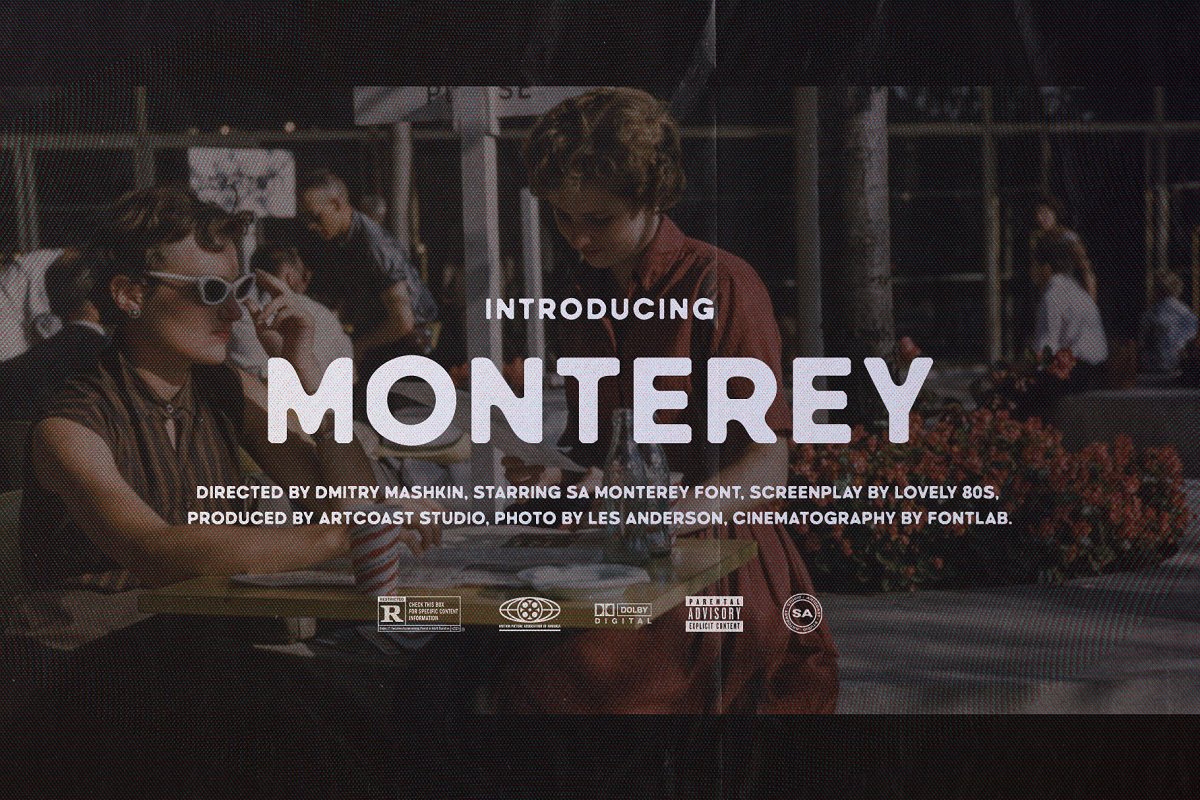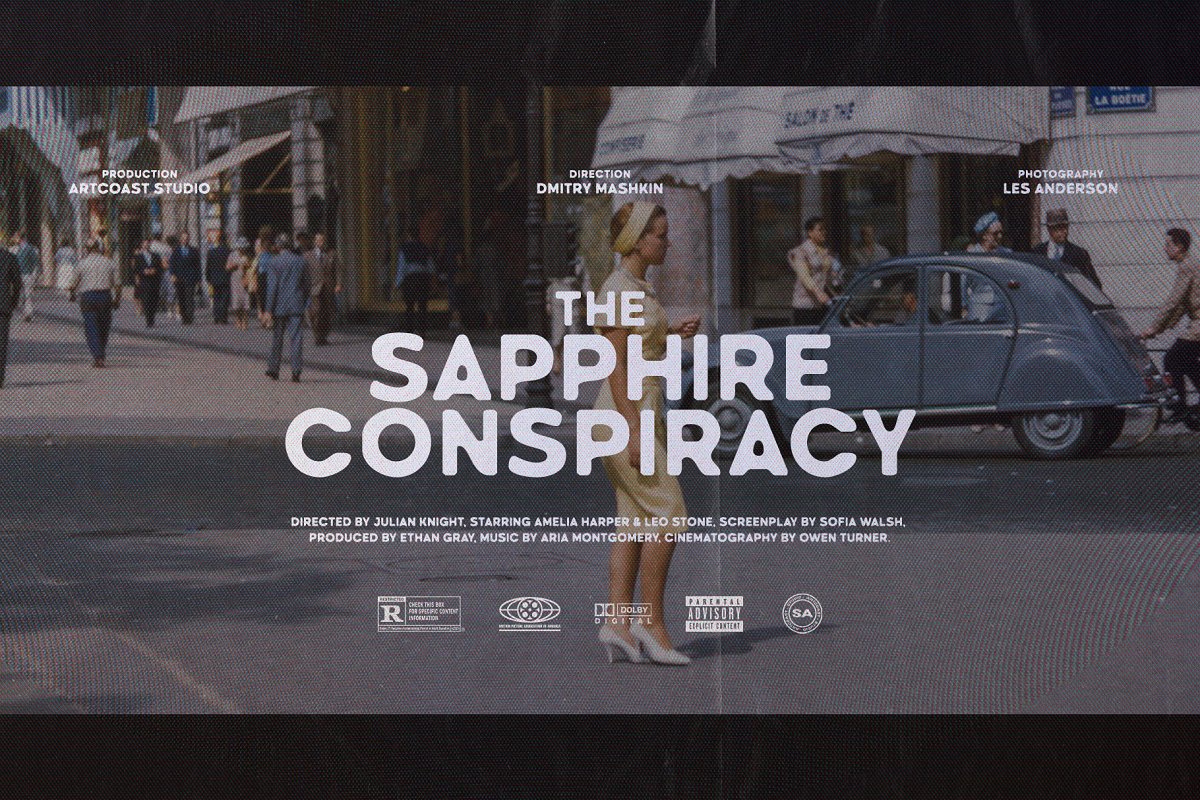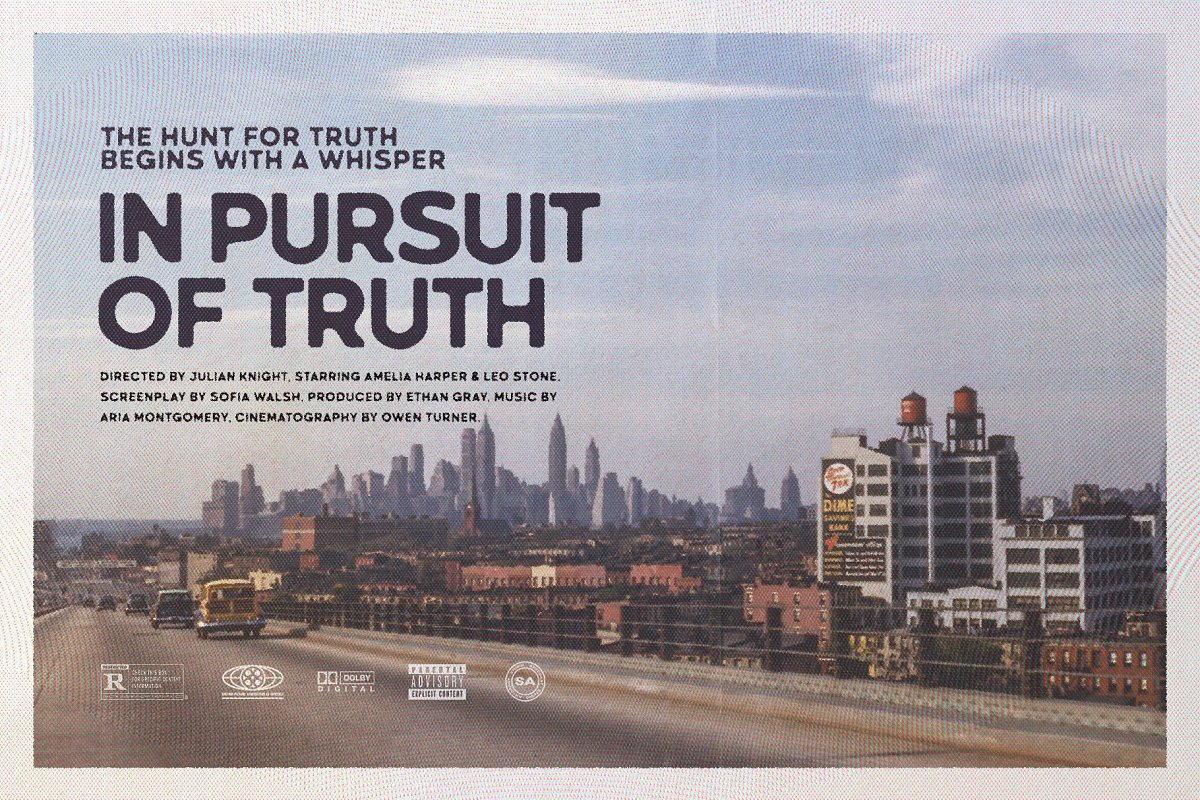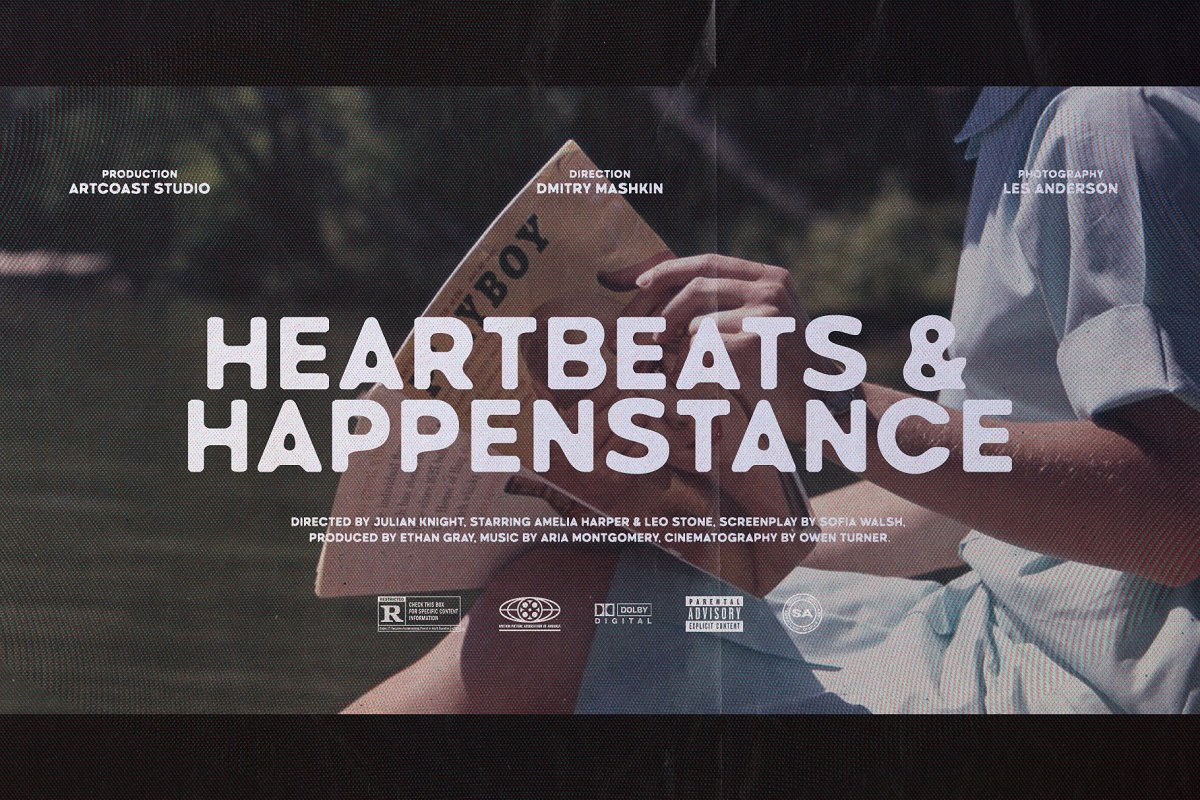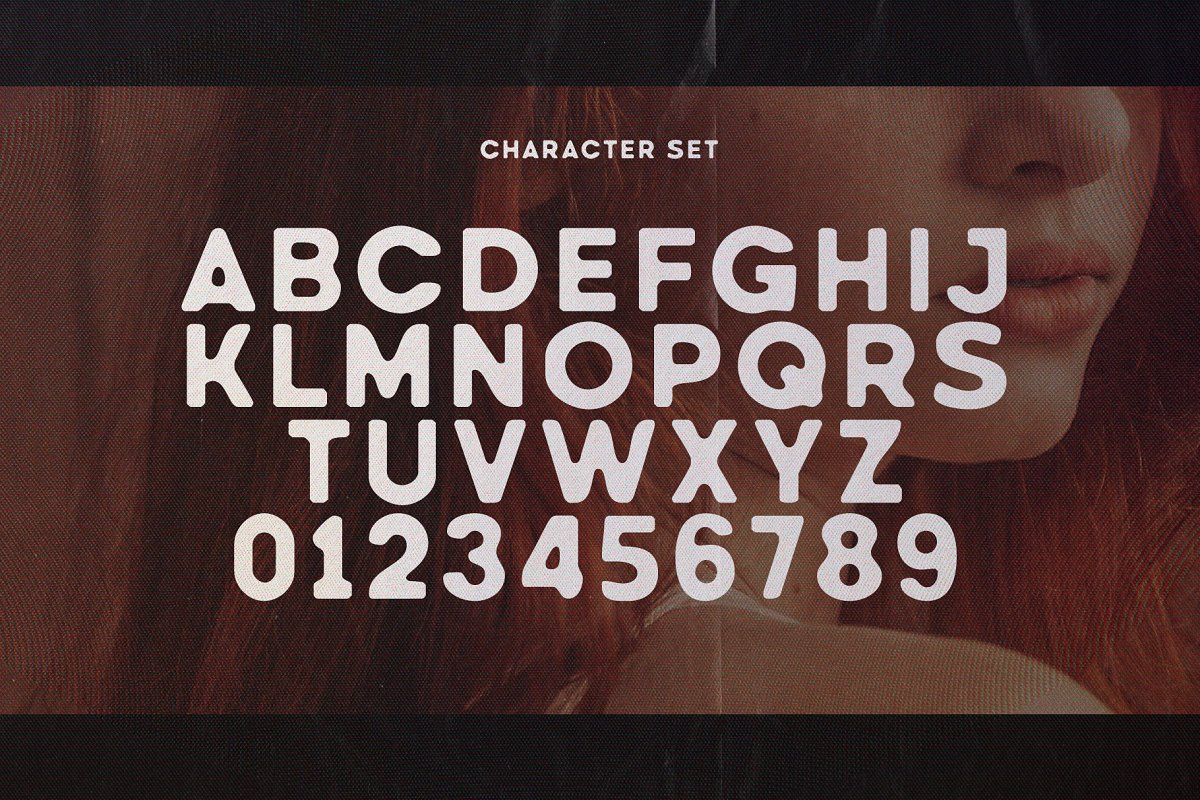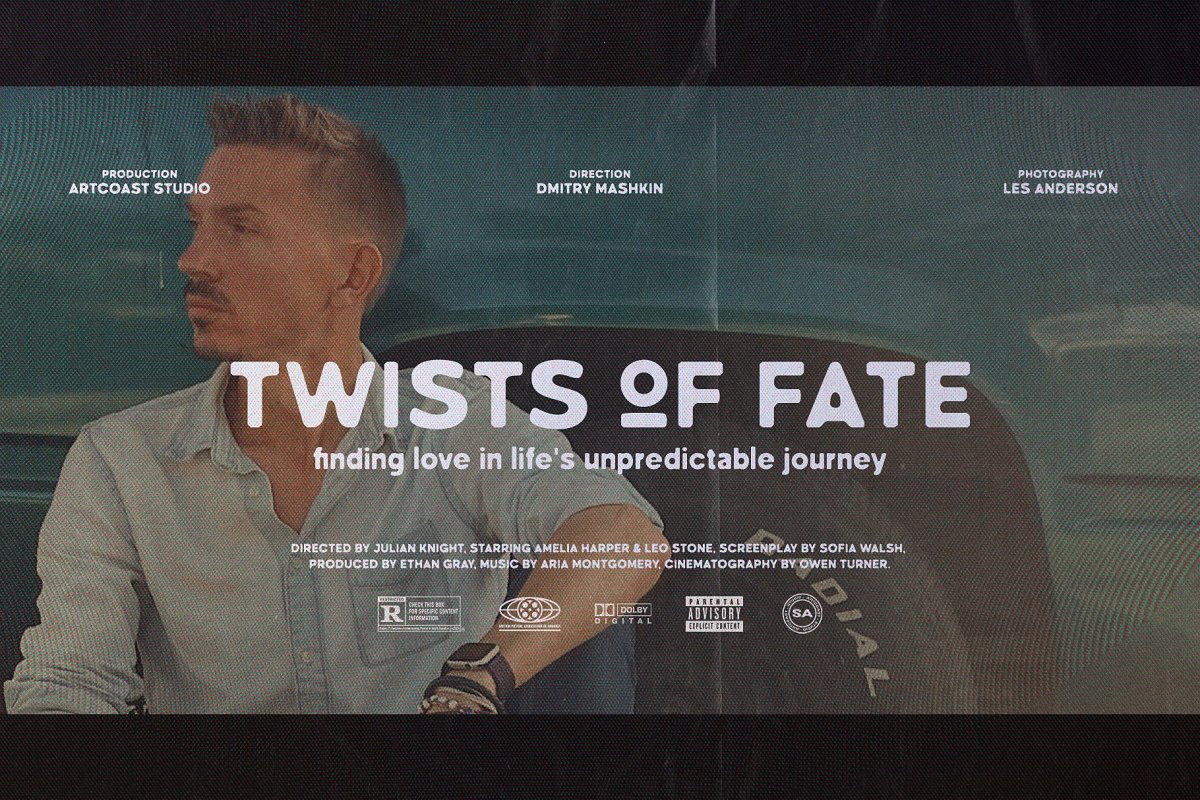
About the SA Monterey Retro Bold Font
Introducing SA Monterey – a bold, retro-style font featuring rounded, distressed edges that evoke a sense of nostalgia and charm, This chunky typeface is perfect for creating striking posters and eye-catching film titles that transport viewers back in time, Make a statement with SA Monterey, masterfully blending vintage appeal and contemporary design, and let your creativity run wild
Embrace the allure of the past with SA Monterey, a typeface designed to add depth and character to your creative projects, Its unique combination of bold weight and weathered edges makes it an excellent choice for vintage-inspired branding, packaging, and advertising campaigns